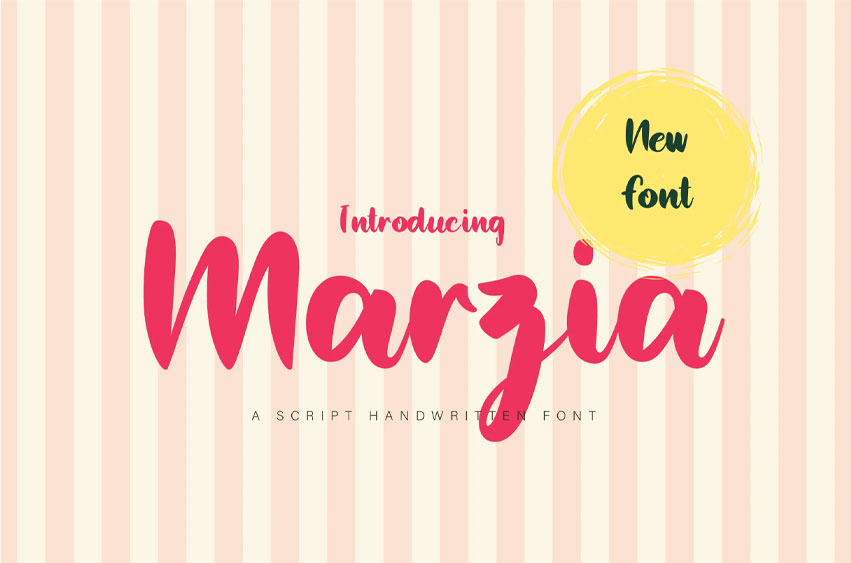
Marzia Font is an elegant script font that beautifully blends graceful curves with modern sophistication.
Its smooth, flowing strokes create a sense of luxury and refinement, making it perfect for high-end branding, invitations, and creative designs.